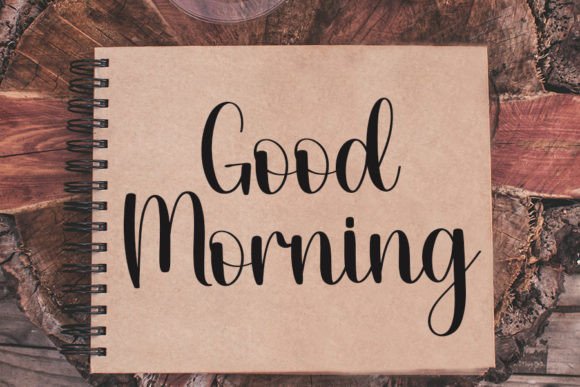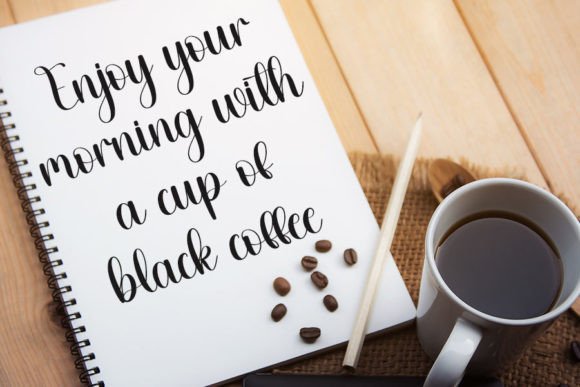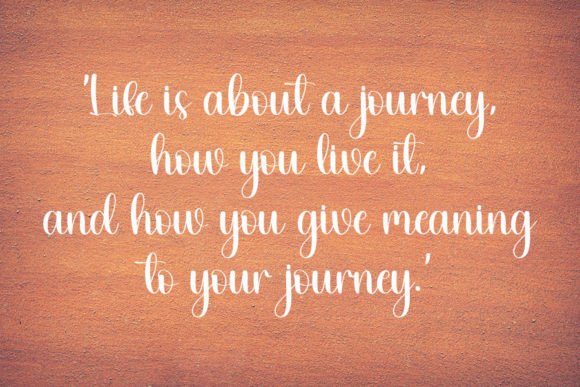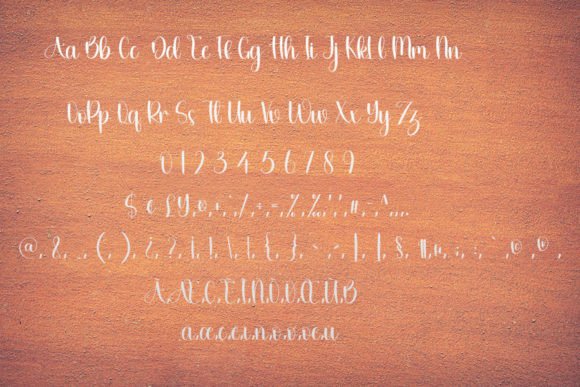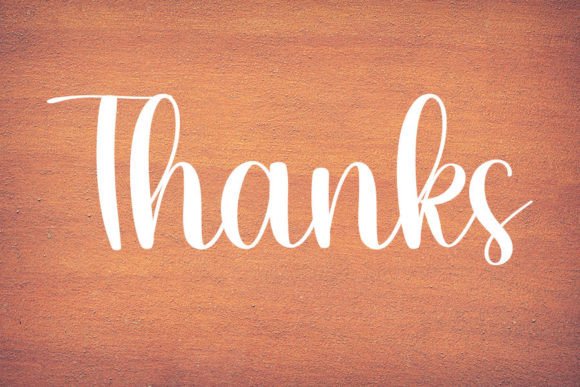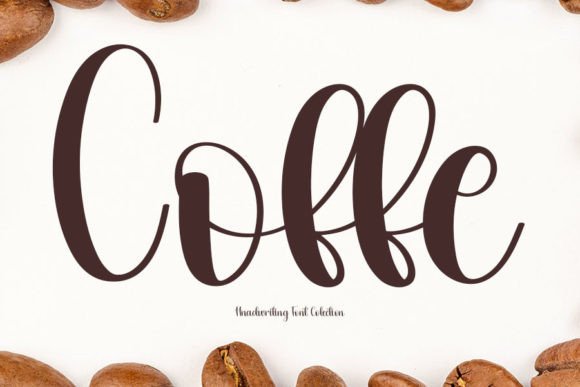
Coffee Font: The Perfect Handwritten Font for Designers and Crafters
Are you tired of using the same old fonts for your designs and crafts? Look no further than Coffee Font, a simple and friendly handwritten font that’s perfect for a variety of projects. Whether you’re a designer, crafter, or DIY enthusiast, Coffee Font has the potential to become your go-to font for all occasions.
What is Coffee Font?
Coffee Font is a beautiful, handwritten font that’s designed to be easy to read and fun to use. Its simplicity and friendliness make it perfect for a wide range of projects, from digital designs and presentations to crafts and greeting cards. The font’s unique charm and character will add a personal touch to any project, making it stand out from the crowd.
Features of Coffee Font
- Simple and Friendly: Coffee Font has a clean and approachable design that’s perfect for creating a warm and inviting atmosphere in your designs.
- Handwritten: The font’s handwritten style gives it a personal and unique touch that’s perfect for adding a human element to your designs.
- Versatile: Coffee Font can be used for a wide range of projects, from digital designs and presentations to crafts and greeting cards.
- Easy to Read: The font’s clear and simple design makes it easy to read, even at small sizes.
Uses for Coffee Font
Coffee Font is perfect for a variety of projects, including:
- Crafts: Use Coffee Font to add a personal touch to your crafts, such as scrapbooking, card making, and DIY projects.
- Digital Design: Coffee Font is perfect for digital designs, such as social media graphics, blog posts, and website headers.
- Presentations: Add a touch of personality to your presentations with Coffee Font, making them more engaging and fun to read.
- Greeting Cards: Use Coffee Font to create beautiful and personalized greeting cards for any occasion.
Benefits of Using Coffee Font
There are many benefits to using Coffee Font in your designs and crafts, including:
- Unique and Personal: Coffee Font adds a unique and personal touch to your designs, making them stand out from the crowd.
- Versatile: Coffee Font can be used for a wide range of projects, making it a great addition to your font library.
Tips for Using Coffee Font
Here are a few tips for using Coffee Font in your designs and crafts:
- Experiment with Sizes: Coffee Font looks great at a variety of sizes, so experiment with different sizes to find the one that works best for your project.
- Pair with Other Fonts: Coffee Font pairs well with other fonts, so try pairing it with a bold font for a fun and playful look.
- Use for Headings and Body Text: Coffee Font is perfect for both headings and body text, making it a great option for creating cohesive designs.
| Font Name | Coffe Font |
| Author | Harlek studio |
Coffee Font is a simple and friendly handwritten font that’s perfect for designers and crafters. Its versatility, ease of use, and unique charm make it a great addition to any font library. Whether you’re creating digital designs, crafts, or greeting cards, Coffee Font is sure to become your go-to font for all occasions.